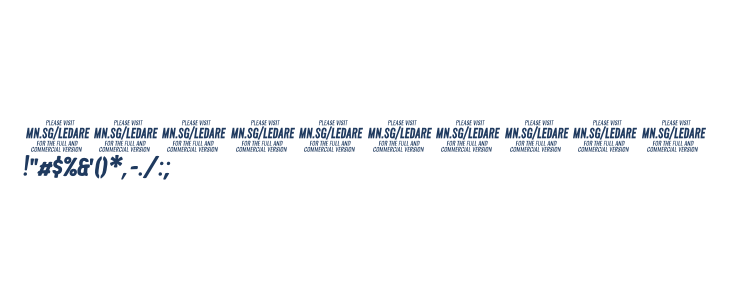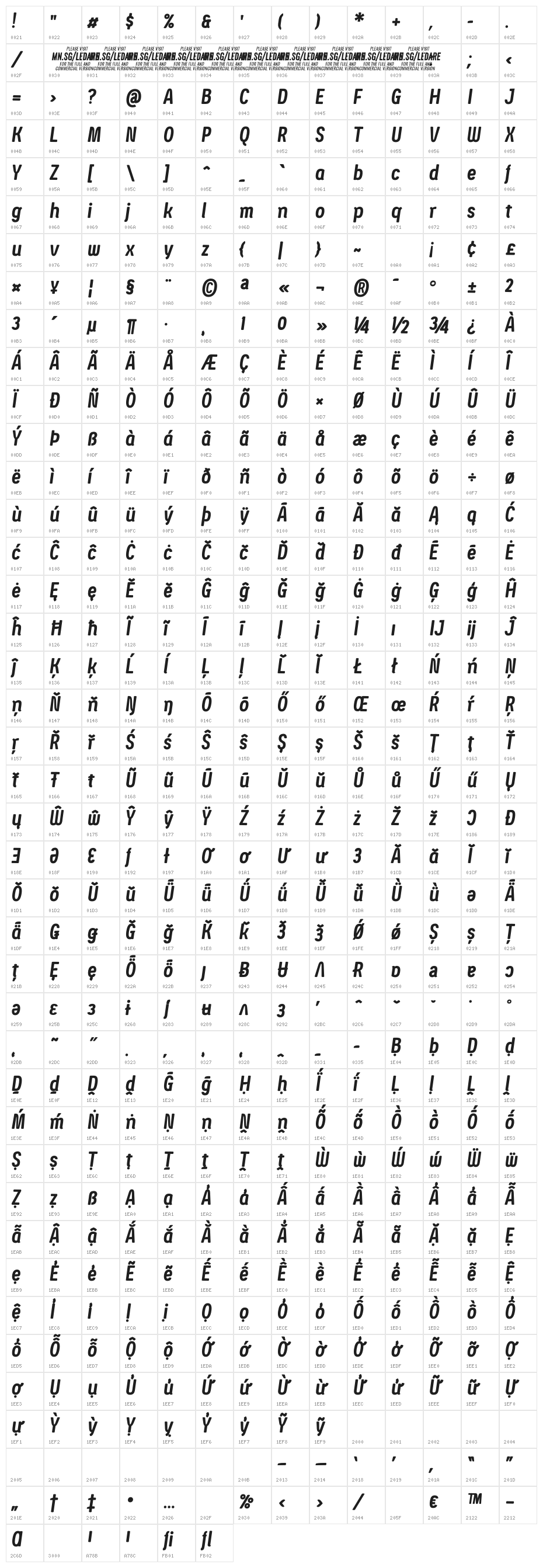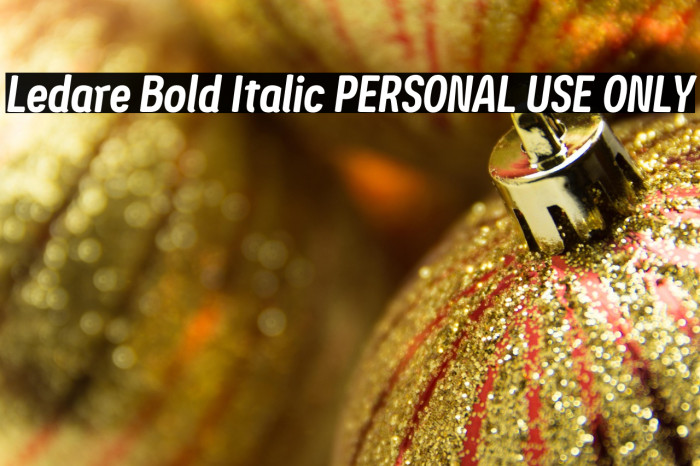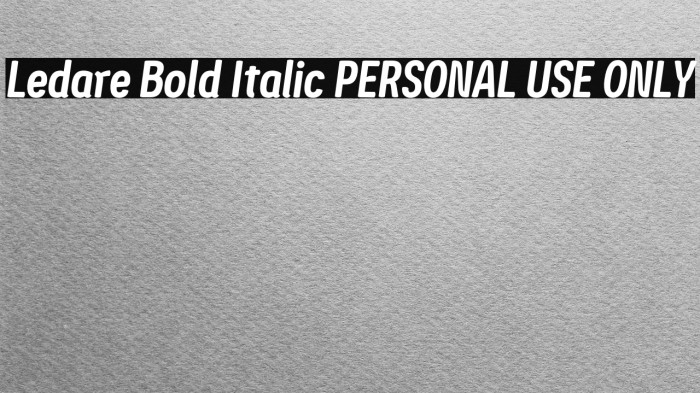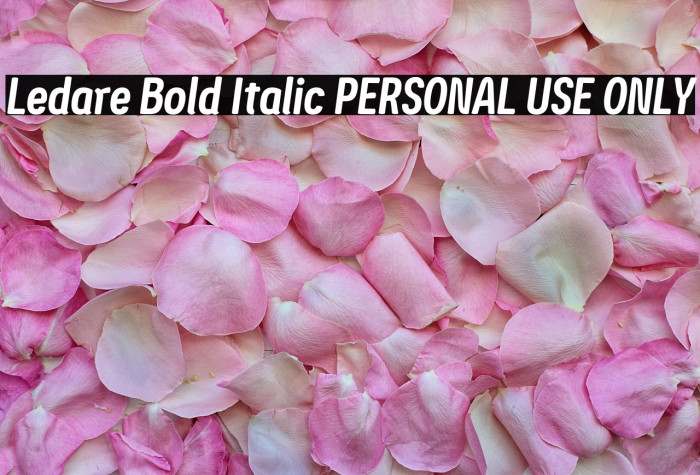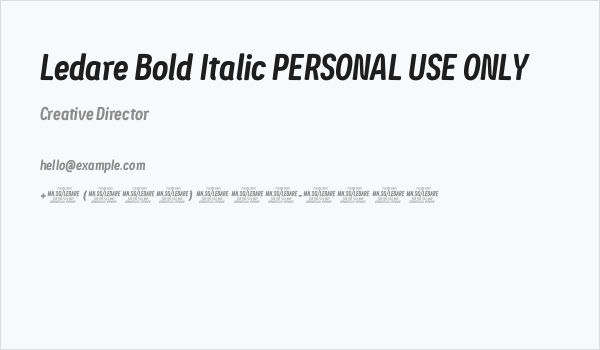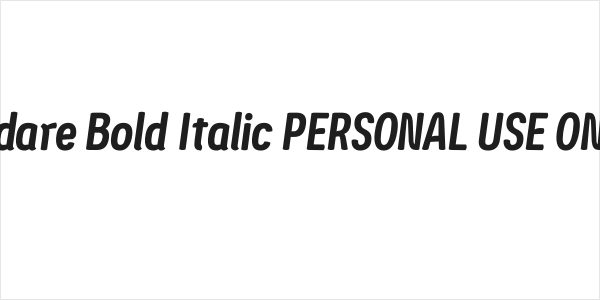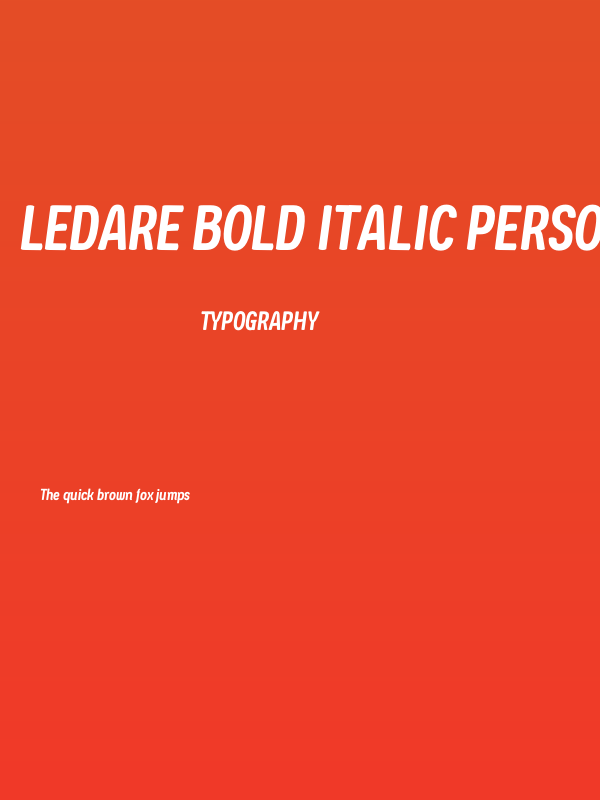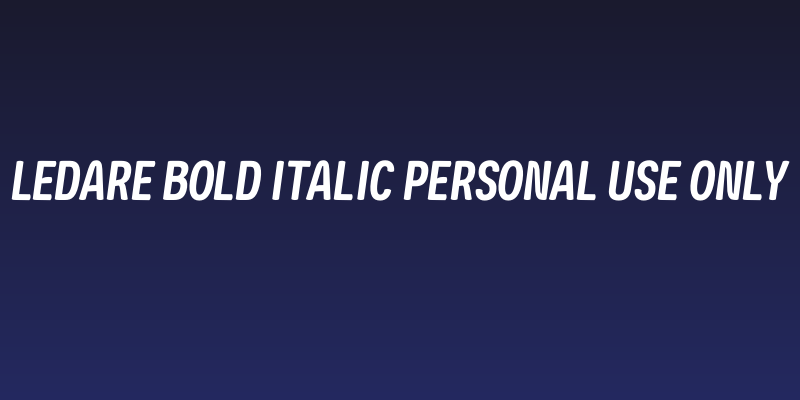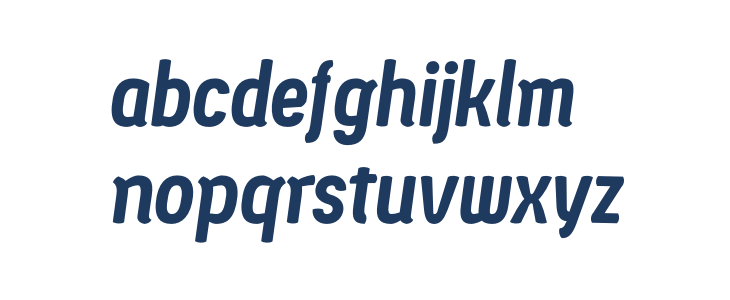
Ledare Bold Italic PERSONAL USE ONLY Font
Ledare Bold Italic PERSONAL USE ONLY Description
This font features a bold and italic style, characterized by its strong and dynamic appearance. The letters are slightly slanted, giving a sense of movement and energy. The strokes are thick and consistent, providing a robust and impactful look. The uppercase and lowercase letters maintain a uniform style, with rounded edges that soften the overall boldness. The numbers and special characters follow the same design principles, ensuring cohesion across all elements. This font is suitable for making statements and capturing attention with its assertive and modern aesthetic.
Proposed ProjectsIdeal for branding, headlines, posters, and advertising materials where a strong and energetic presence is desired.